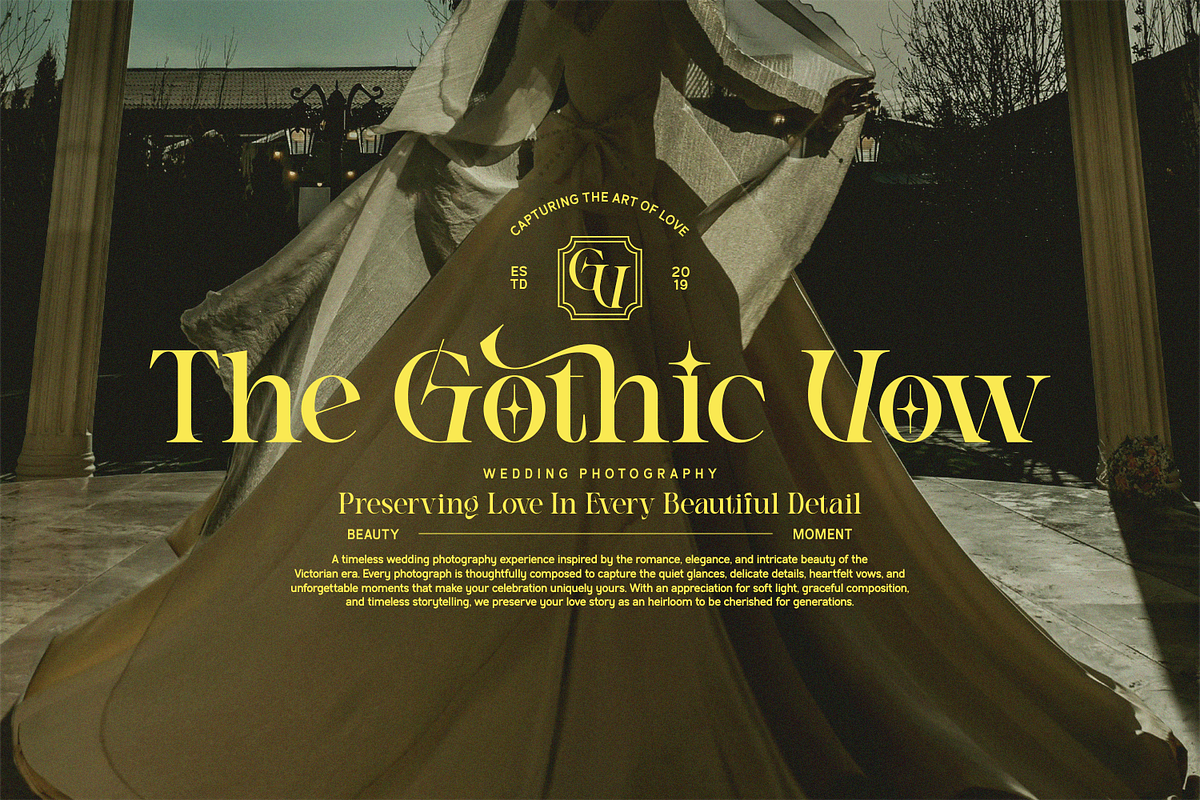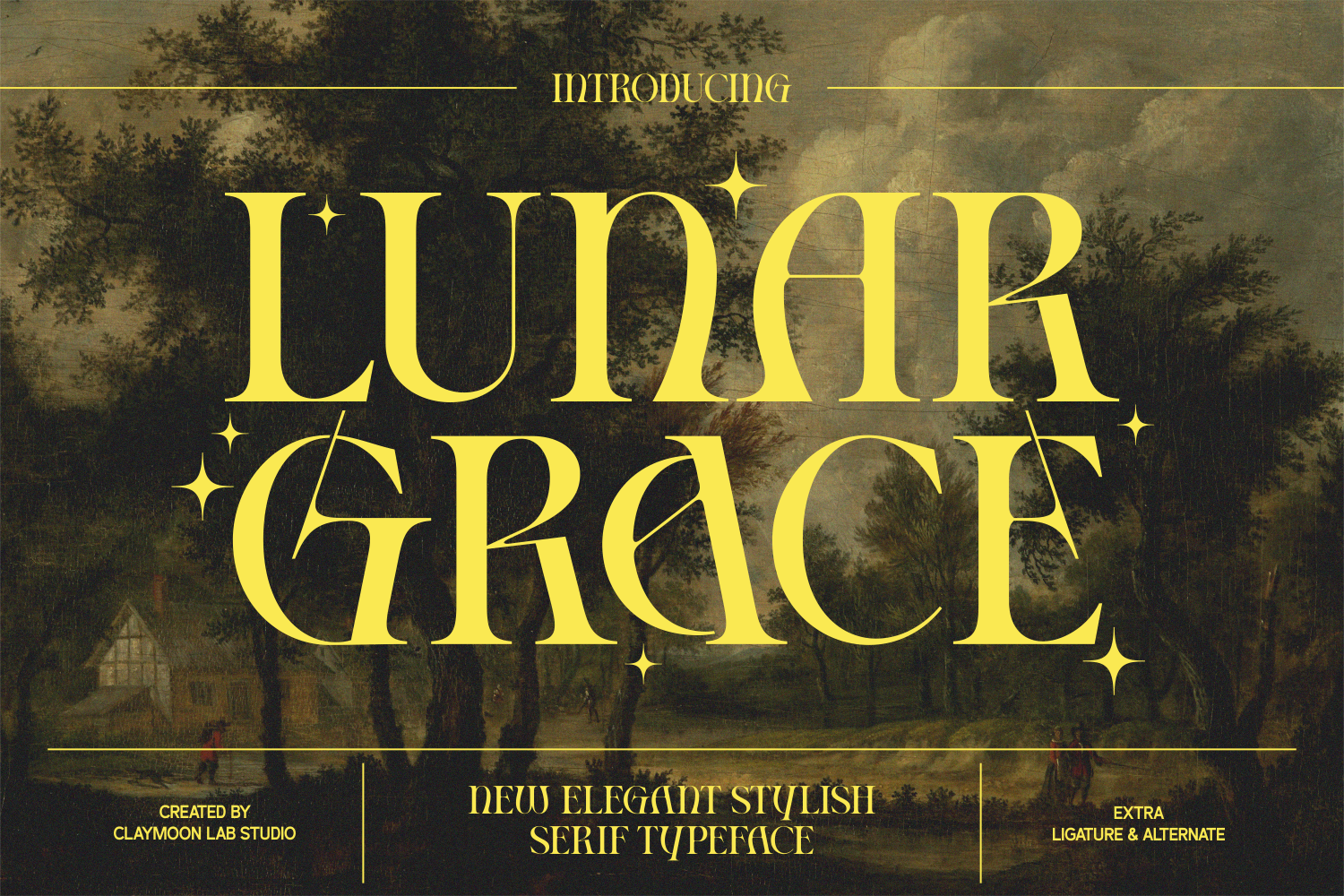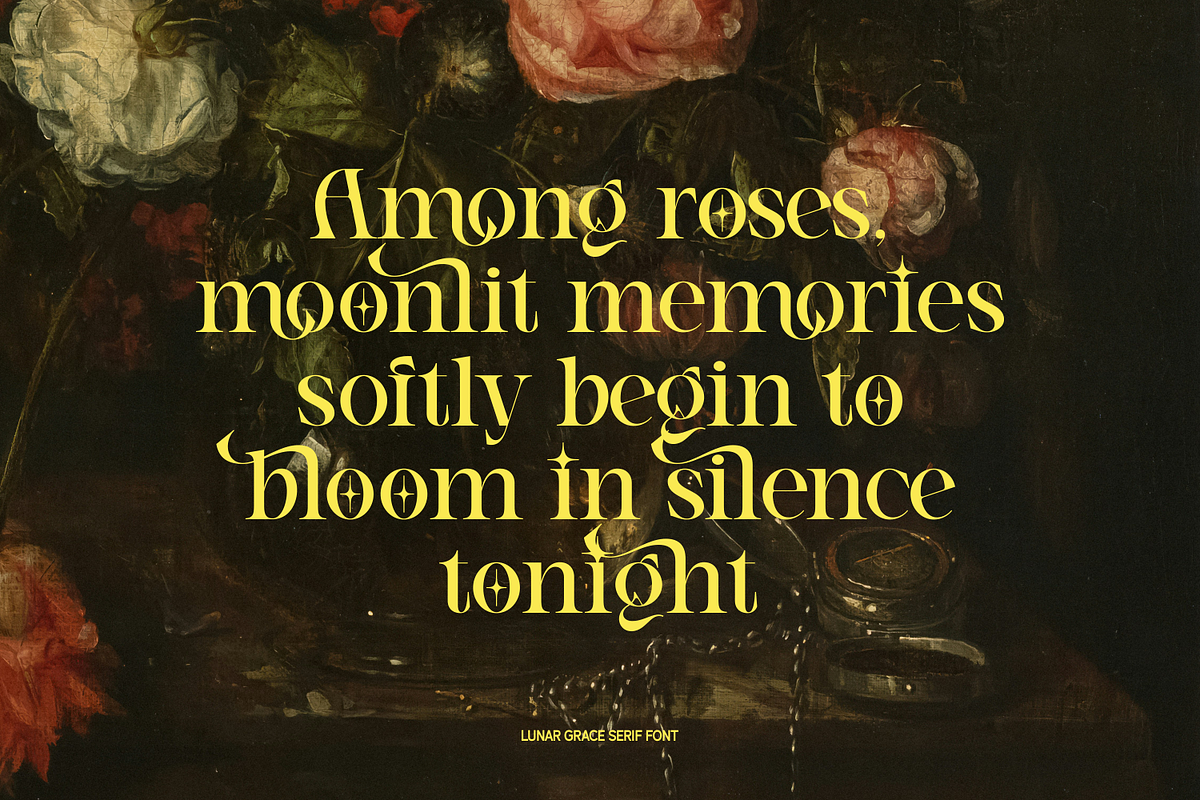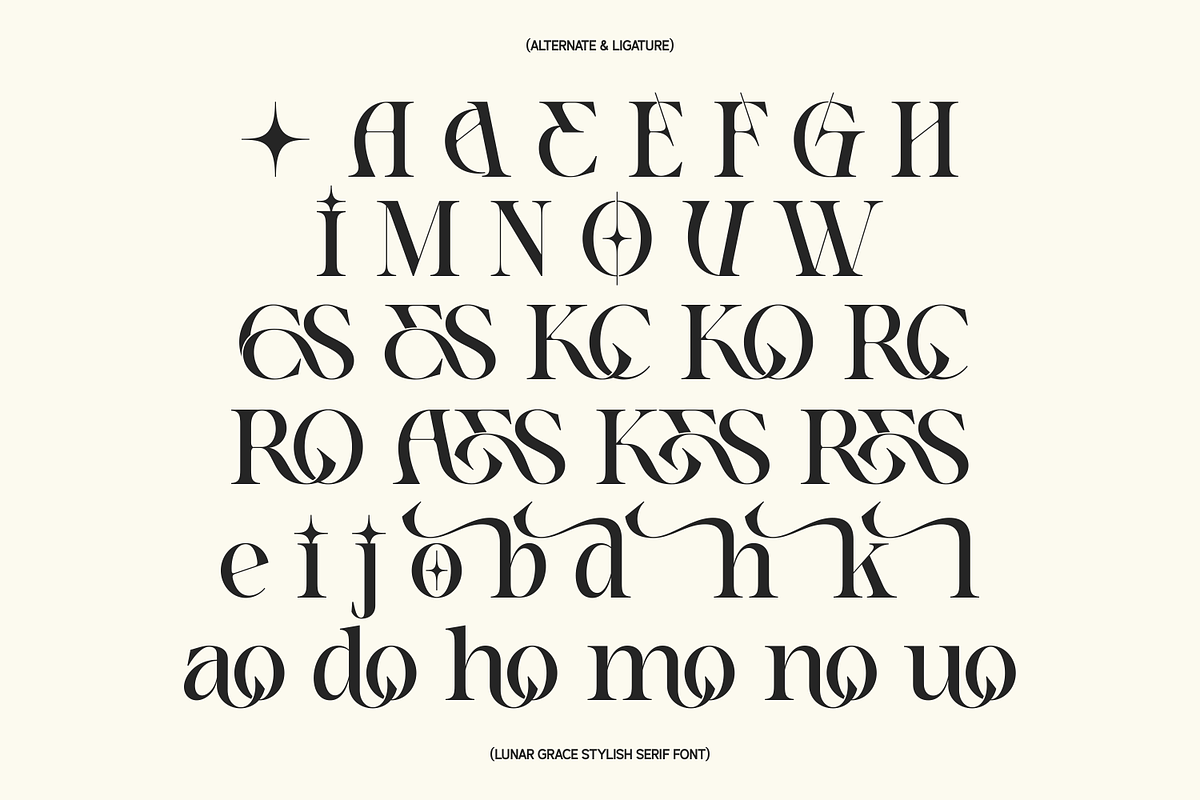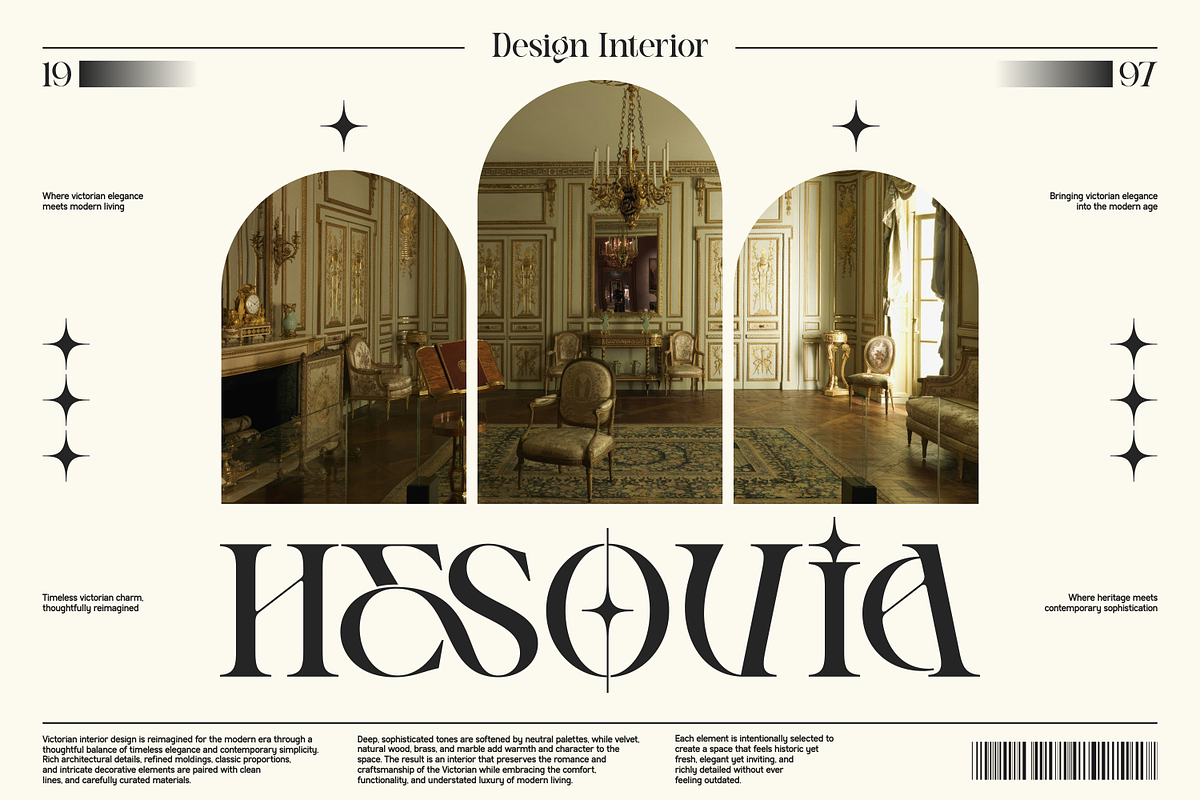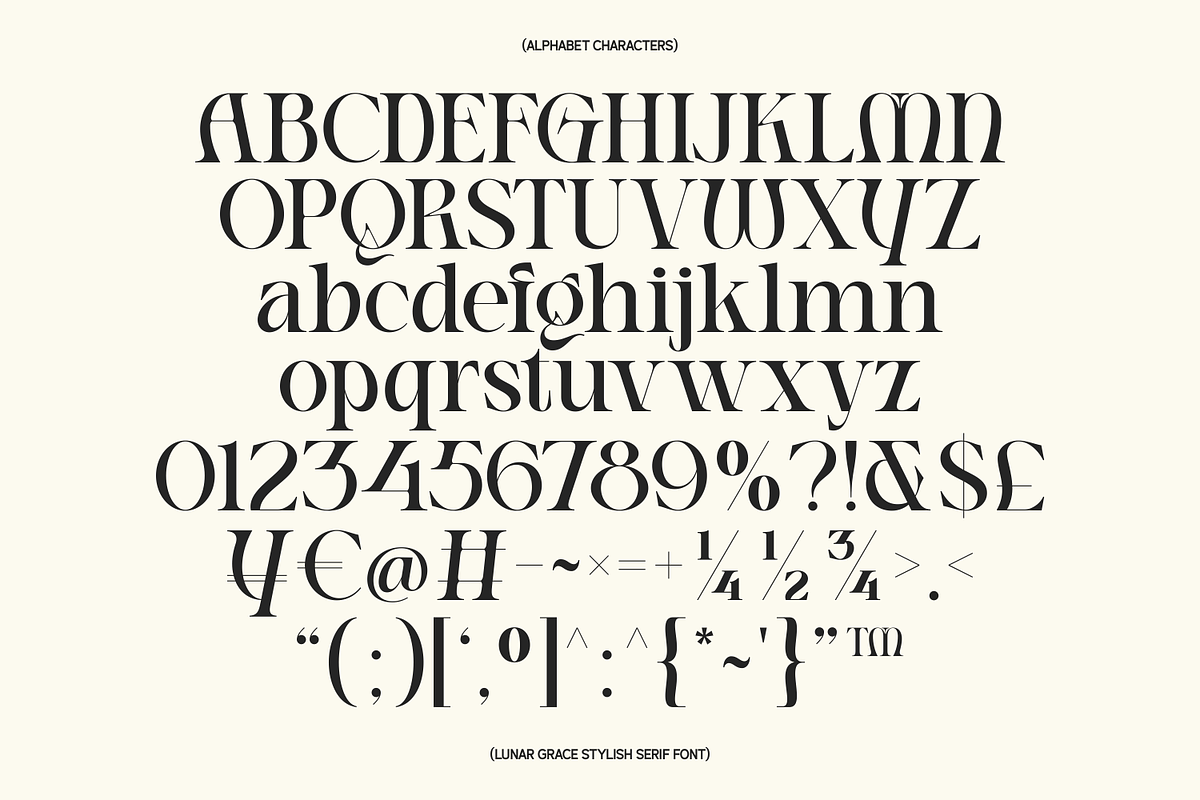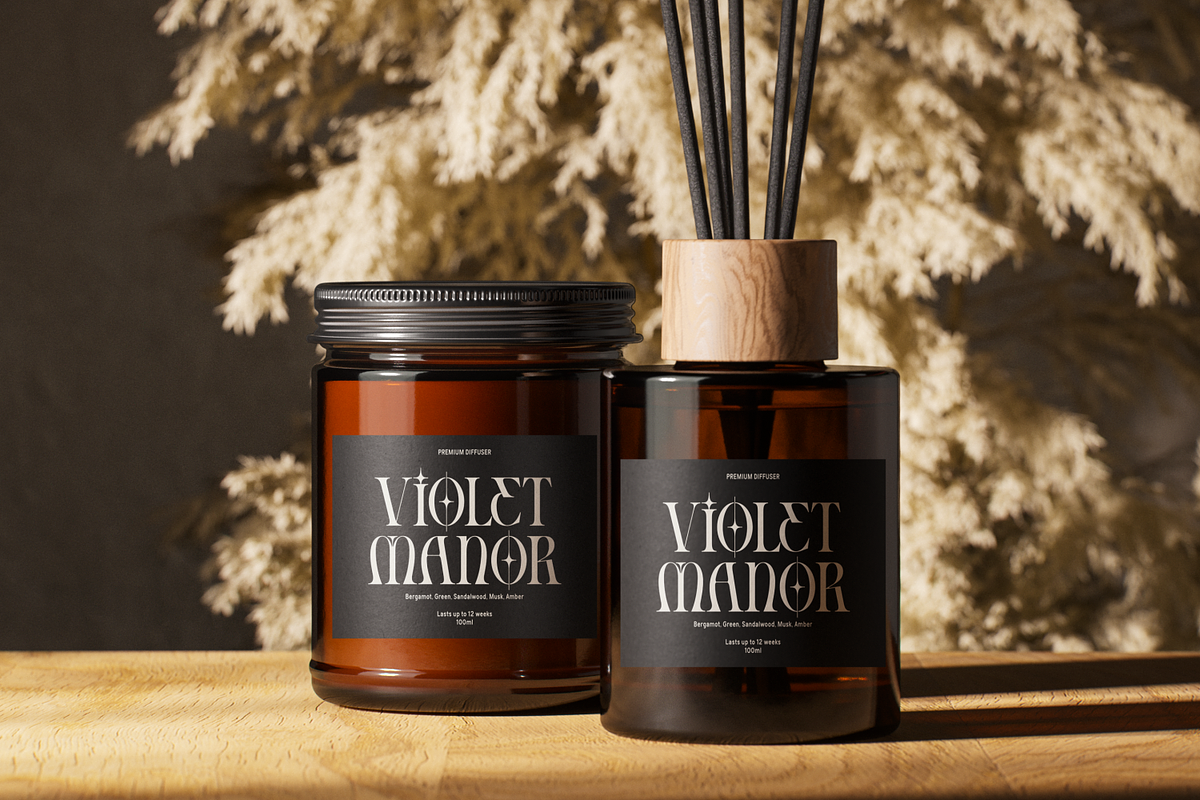
Lunar Grace — Elegant Luxury Font
Lunar Grace — Elegant Stylish Serif Font
Infuse your digital designs with a sense of timeless romance and sophisticated charm using Lunar Grace, an elegant stylish serif typeface. Inspired by the intricate beauty of the Victorian era and delicate gothic romance, this font features high-contrast letterforms, sharp terminals, and unique starburst accents integrated directly into its characters. The result is a magical, celestial aesthetic that feels both classic and beautifully modern.
Lunar Grace includes a comprehensive suite of custom alternates and seamlessly flowing ligatures, empowering you to craft highly bespoke and decorative typography. Whether you are designing premium home fragrance labels, elegant wedding photography portfolios, or high-end interior design editorials, this typeface delivers a luxurious and captivating visual experience.
Full Character Set: Uppercase, lowercase, numerals, and standard punctuation.
Alternates & Ligatures: Unique star-accented characters and beautifully joined letterforms for a custom typographic finish.
Standard Latin Support: Broad language coverage for international creative projects.
Luxury & Boutique Branding: Crafting high-end brand identities, premium wordmarks, and sophisticated logotypes.
Wedding & Event Typography: Designing romantic digital invitations, wedding photography branding, and elegant event announcements.
Beauty & Home Fragrance Packaging: Developing chic typography for diffuser labels, cosmetic branding, and wellness products.
Editorial & Interior Design: Composing stylish magazine headlines, digital lookbooks, and architectural portfolios.
Digital & Web Typography: Enhancing online platforms, luxury digital campaigns, and refined social media aesthetics.